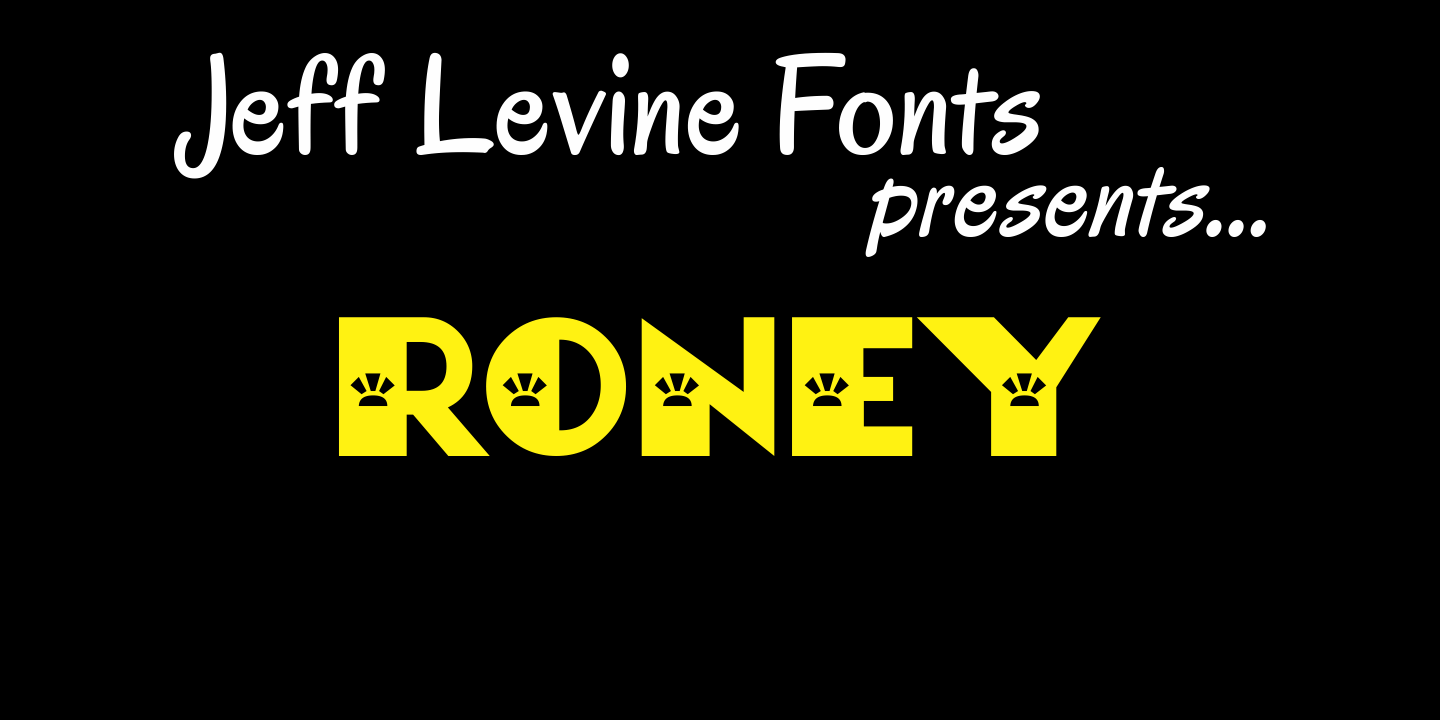
Roney
If it's at all possible to "Deco-ize" an Art Deco font even more, it's been done with Roney JNL. Named for one of the classic hotels built during the heydey of Miami Beach, this font is a stylized version of Jeff Levine's Metalet Modern; a design derived from an actual 1940s home movie titling set.
Roney JNL Regular by Jeff Levine Fonts